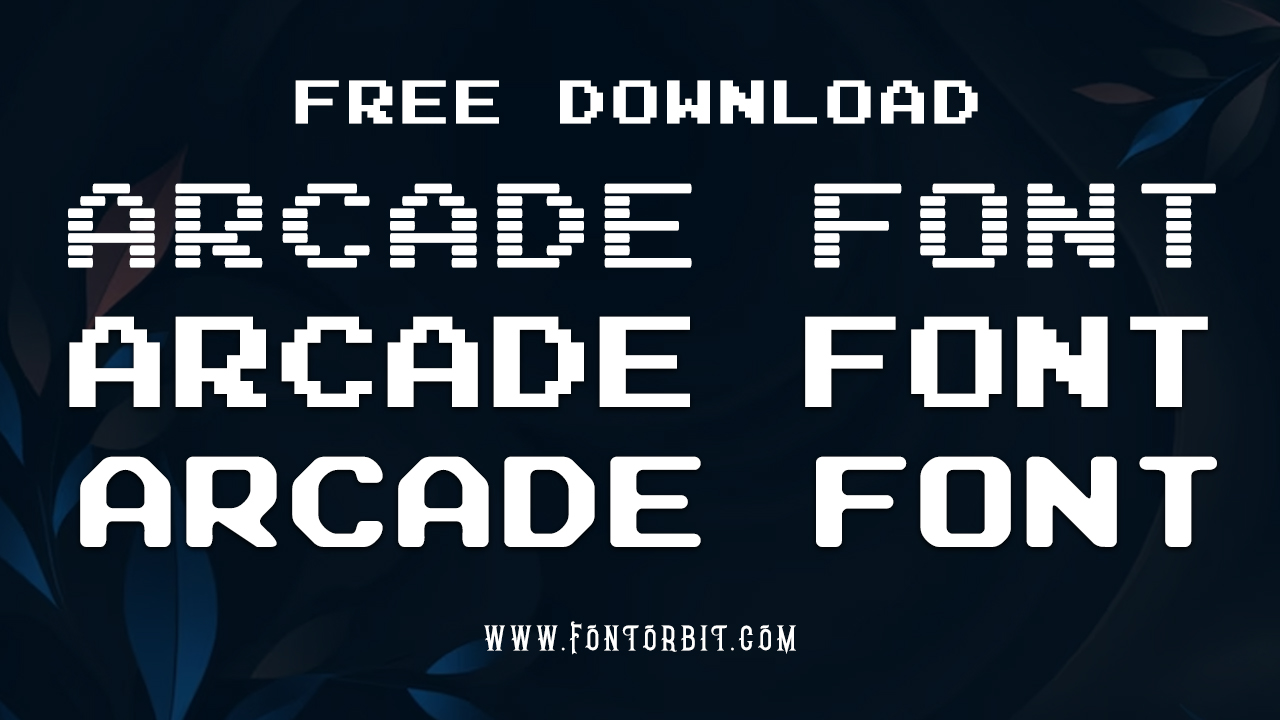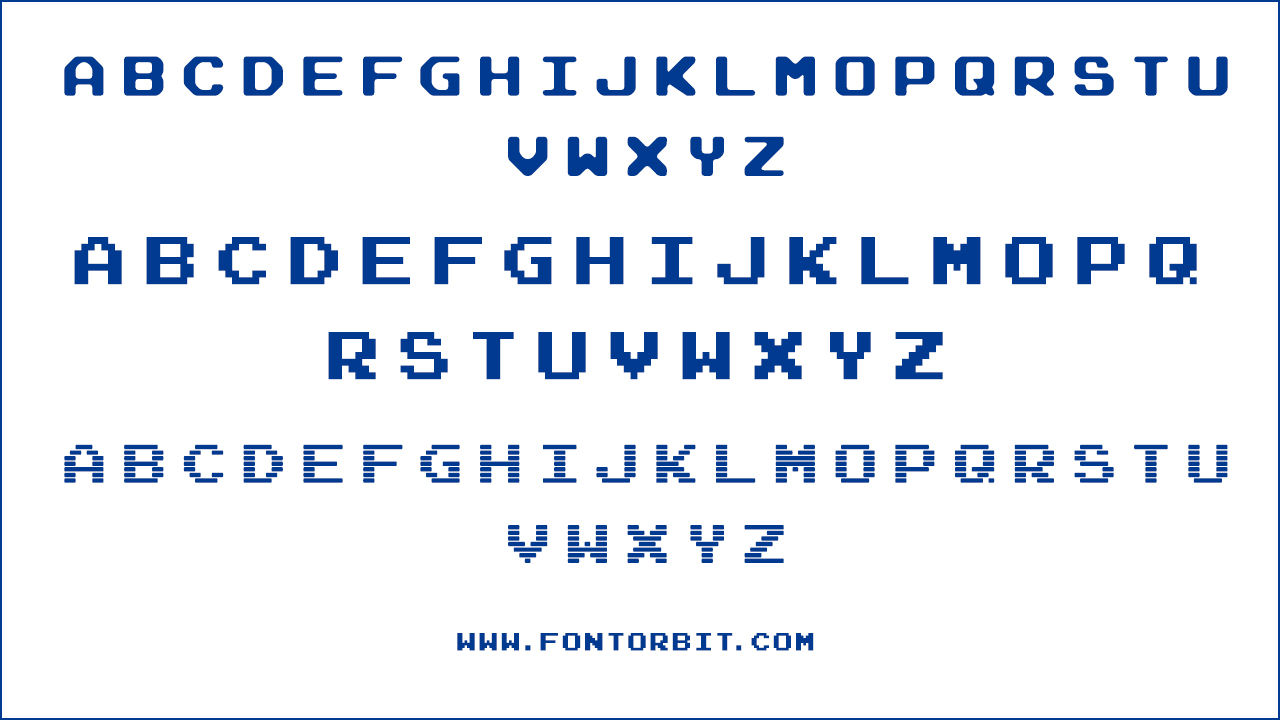
Arcade Font is a unique and custom vintage-inspired typeface that pays homage to the 8 × 8 pixel fonts of classic arcade video games from the ’70s to the ’00s.
Designed by CodeMan38, Arcade Font captures the essence of retro gaming with its distinctive pixelated style. It is free for both personal and commercial use.
The Arcade Font Family Includes
Arcade Font’s design reflects the charm and nostalgia of early video game graphics. The font family includes multiple styles, each offering a pixelated aesthetic that evokes the look and feel of vintage arcade games.
- Arcade Classic Font
- Press Start 2P
- Public Pixel
Arcade Font’s pixelated style makes it a perfect fit for projects that embrace retro gaming culture and vintage aesthetics. Its distinctive look is ideal for a variety of creative and commercial applications where a nostalgic touch is desired.
- Video Game Titles
- Game Interfaces and UI
- Event Posters and Flyers
- Retro-themed Merchandise
- Logos for Gaming Brands
- Website Headers
- Educational Materials on Game History
- Product Packaging for Retro-Inspired Items
- Album Covers for Electronic Music
You will often see Arcade Font in contexts that celebrate the golden age of video games, from digital art to promotional materials. Its pixelated quality makes it a popular choice for designs that aim to capture the retro gaming vibe and digital nostalgia.
Arcade Font embodies the nostalgic spirit of classic video games with its pixelated design. While it may not replicate any specific historical font, it effectively captures the essence of retro gaming graphics. Pair Arcade Font with modern, clean fonts or design elements to create a compelling contrast and enhance its visual impact.
1.Is Arcade Font Suitable For All Types Of Design Projects?
Arcade Font is best suited for projects that require a retro or gaming-inspired aesthetic. Its pixelated style is ideal for headings and titles but may be less suitable for body text or formal documents.
2.What Makes Arcade Font Different From Other Pixelated Fonts?
Arcade Font stands out with its distinctive vintage arcade style, capturing the essence of classic gaming graphics. Unlike other pixelated fonts, it combines a nostalgic feel with a modern, versatile application.
3.What Are The Popular Uses Of Arcade Font?
Arcade Font is popular for video game-related projects, retro-themed merchandise, event promotions, and digital graphics that aim to evoke a sense of vintage gaming.
4.What Are The Design Principles Behind The Arcade Font?
The design principles behind Arcade Font focus on nostalgia, pixelated clarity, and a retro gaming aesthetic. The font features a blocky, pixelated design reminiscent of early video game displays.
5.What Color Palette Is Typically Used With Arcade Font?
Arcade Font is often used with bold, vibrant colors that highlight its pixelated quality. Designers frequently use high-contrast color schemes to enhance readability and visual impact.